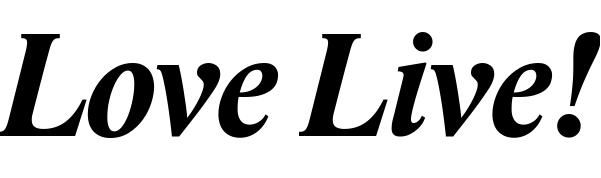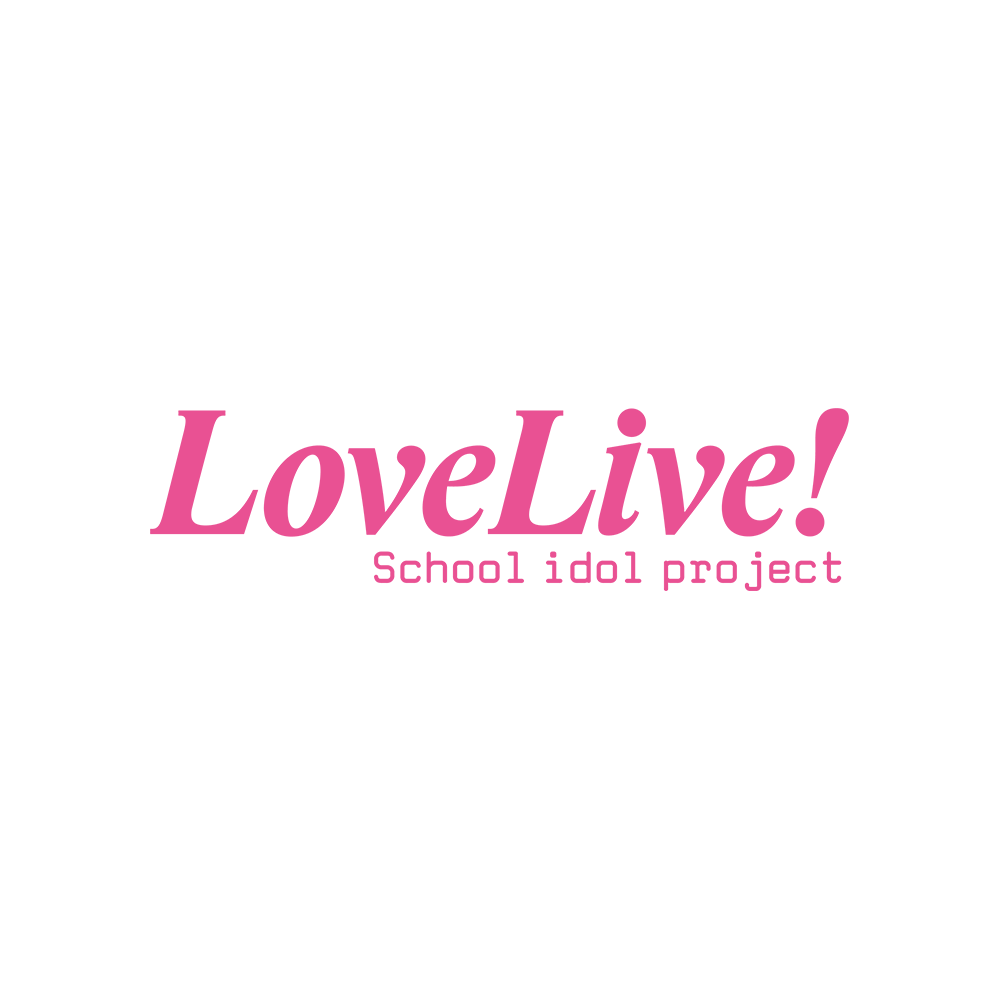
Love Live School Idol Project Font
BookLove Live! School Idol Project is an anime and multimedia project about a group of high school girls who form an idol group to save their school from closing. It includes music, games, and more.
The "Love Live" portion is set in Lido STF Bold Italic, a transitional serif font created by Czech type designer Frantiek Torm, while the "School Idol Project" part is quite similar to FF Magda Clean Mono Regular designed by Cornel Windlin's as a monospaced slab serif.